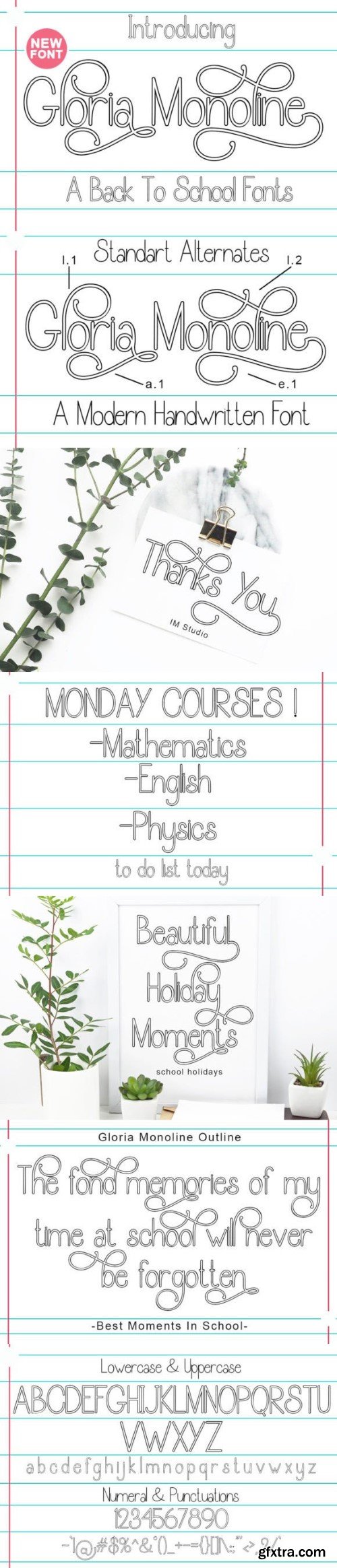
Gloria Mono轮廓字体
Write beautifully and neatly with this Gloria Monoline Outline font. It gives you the option to write beautiful and legible notes while maintaining a classic handwritten look. It is perfect for use in any note-taking app or computer.